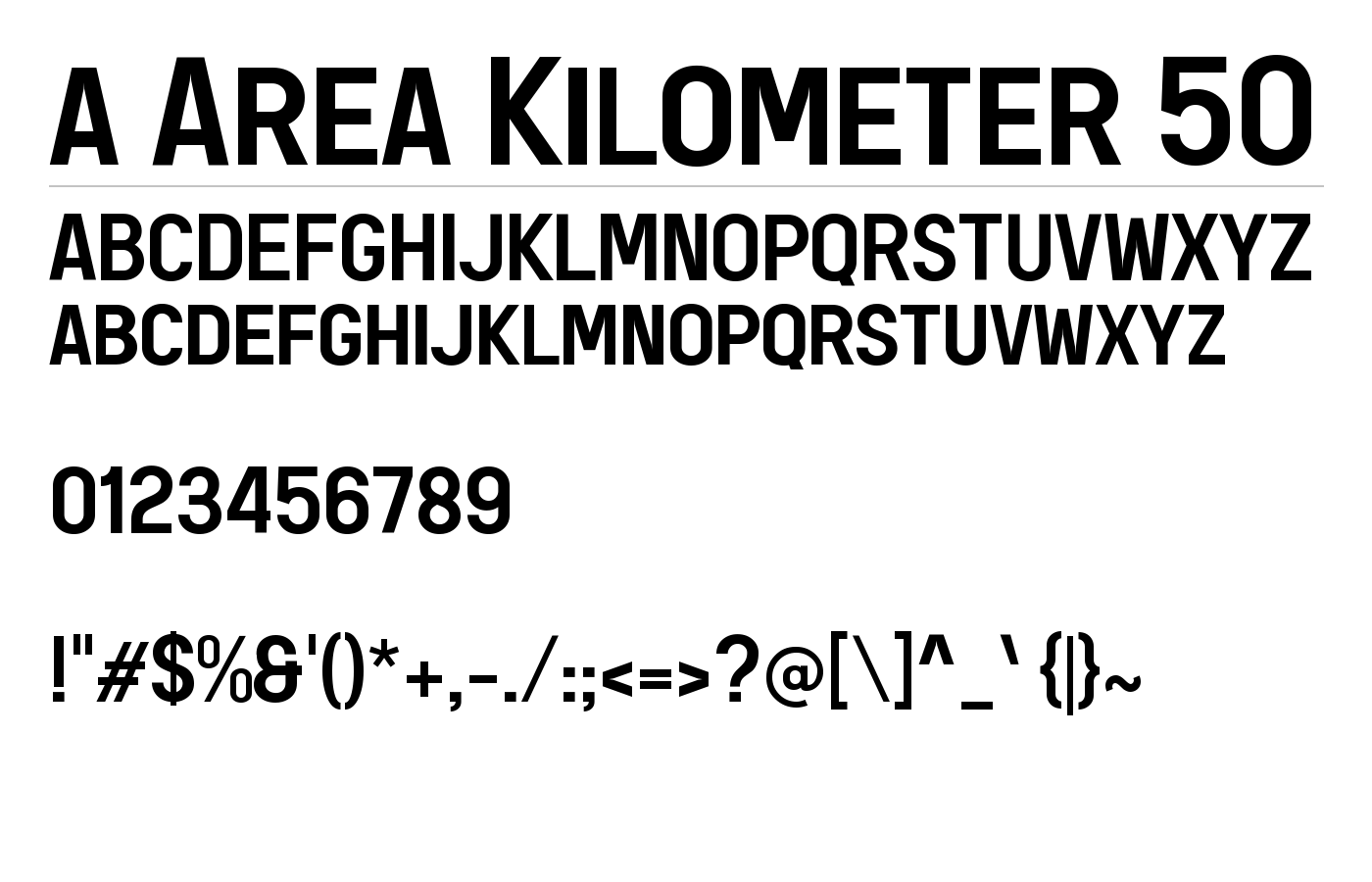
Area Kilometer 50 is a bold, condensed sans serif font with a clean, modern feel that makes it highly legible and impactful. Its consistent stroke weight and compact letterforms lend a sturdy, no-nonsense personality ideal for headlines, signage, and branding that demand clarity and strength. This font is perfect for projects seeking a professional yet approachable look, especially where space is limited but bold presence is needed.
a Area Kilometer 50 Font